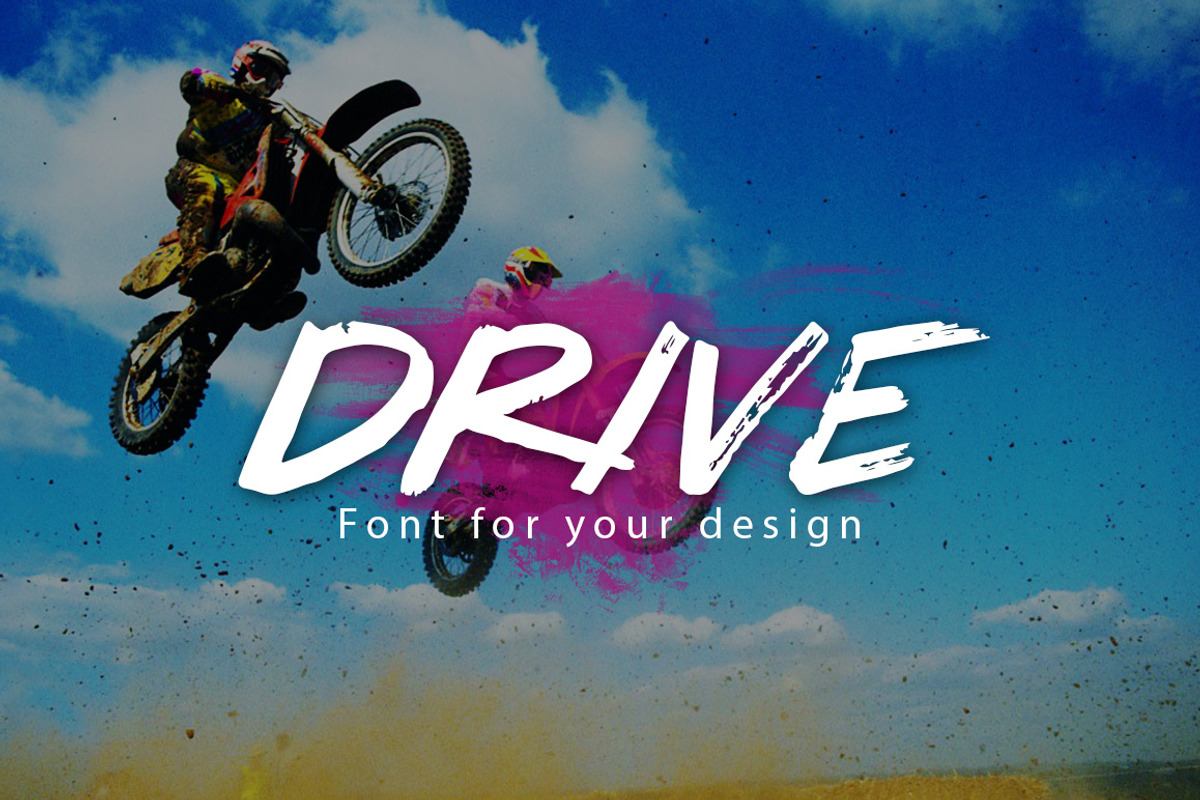
Drive Font Free Download is a bold and modern typeface designed to capture motion, speed, and energy. With its sleek lines, dynamic shapes, and futuristic vibe, Drive is perfect for automotive branding, sports logos, racing events, movie posters, and high-energy digital content.
This font offers strong visual presence and is ideal for projects that need to convey action and power. Whether you're designing a car brand logo, creating promotional material for a sports event, or adding a modern touch to your website, Drive gives your typography an impactful and fresh look.